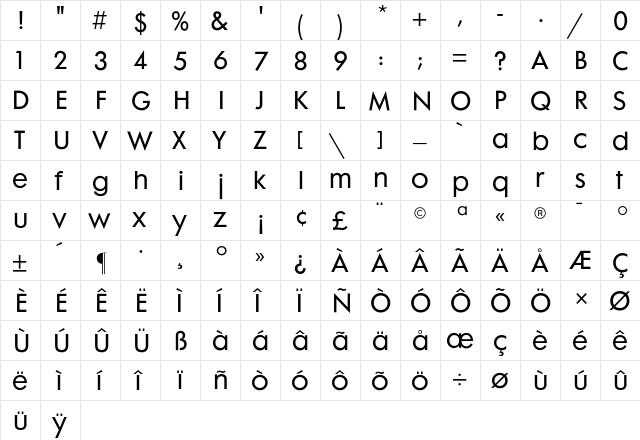
Futura Maxi CG Book Regular
Design Context for Futura Maxi CG Book Typeface
Futura Maxi CG Book channels digital-age aesthetics through its sharp, structured letterforms — ideal for brands that want to signal innovation.
Pro Tip: Try Futura Maxi CG Book with generous letter-spacing in UI labels and navigation — the geometric forms benefit from room to breathe.